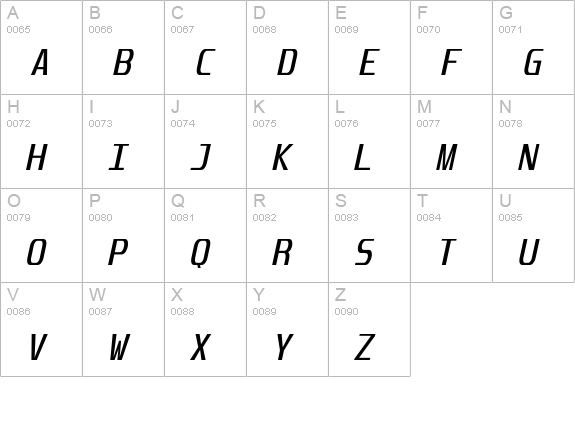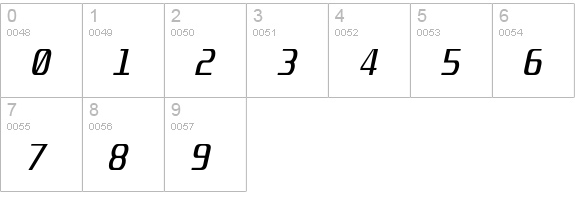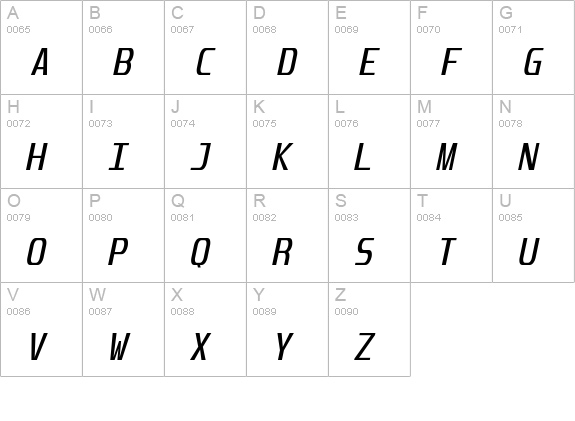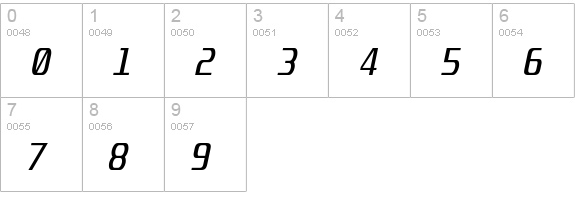
Unispace Italic Font Details
Unispace Italic is a distinctive, italic variant in the Unispace typeface family \xE2\x80\x94 well suited to design and typography projects.
Unispace Italic font is a perfect blend of elegance and modernity, designed to add a touch of sophistication to any design project. Its clean lines and slanted angles create a sense of fluidity, making it ideal for conveying a sense of movement and dynamism. This font's versatility is truly remarkable, as it seamlessly adapts to various design applications, whether it be for digital or print media. It effortlessly enhances the visual appeal of logos, advertisements, brochures, websites, and more. With its unique italic styling, Unispace Italic font adds a distinctive and professional touch to any text. One of the best features of Unispace Italic font is that it is free to download at FontsMarket.com. This means that designers, creatives, and enthusiasts alike can access this extraordinary font without any financial constraints. Whether you are a seasoned professional or an aspiring designer, the availability of Unispace Italic font ensures that you can bring your creative vision to life without any limitations. With its high legibility and exceptional readability, Unispace Italic font is perfect for both headlines and body text. Its well-balanced proportions and carefully crafted letterforms make it a joy to read, ensuring that your message is effectively conveyed to your audience. Unispace Italic font truly stands out among its counterparts, with its unique combination of elegance, versatility, and availability. It is a font that not only elevates the aesthetics of any design but also empowers designers by providing them with a powerful tool that helps them achieve their creative goals. So, if you are looking for a professionally designed font that is freely available, Unispace Italic font is the perfect choice for you. Download it now at FontsMarket.com and experience the transformative power of this exceptional typeface.